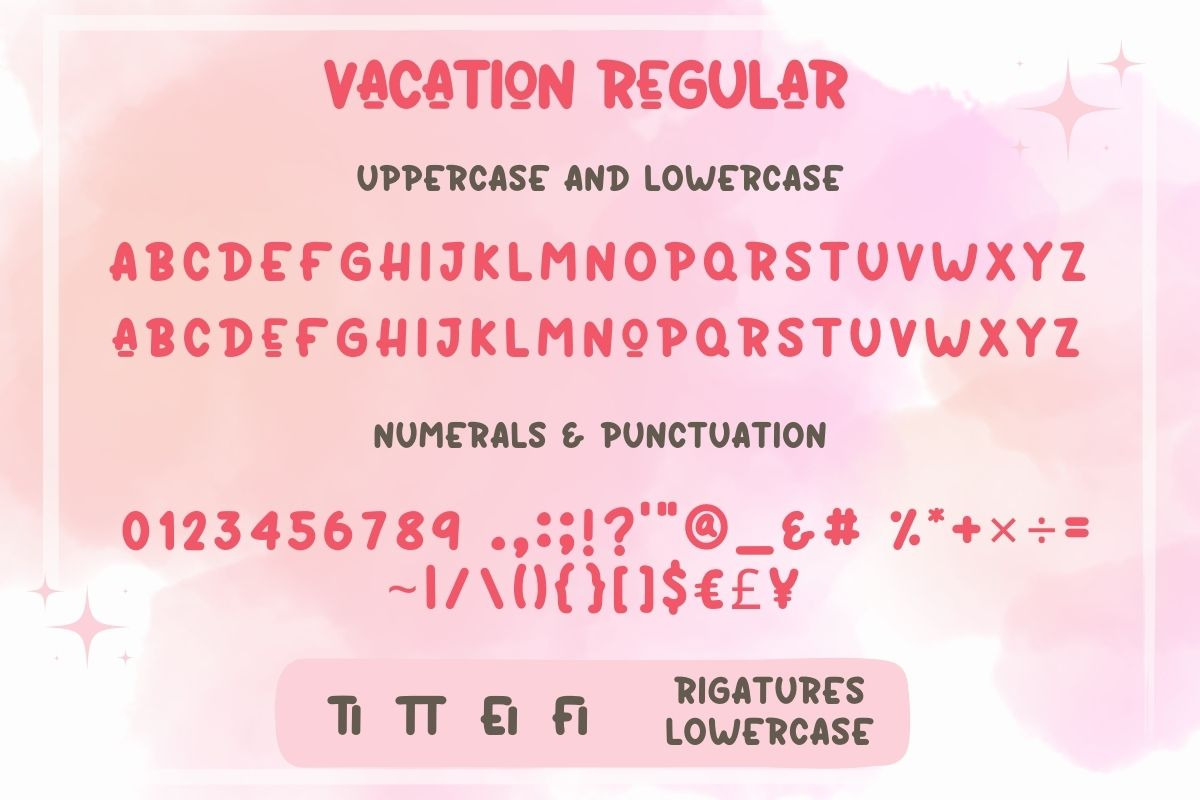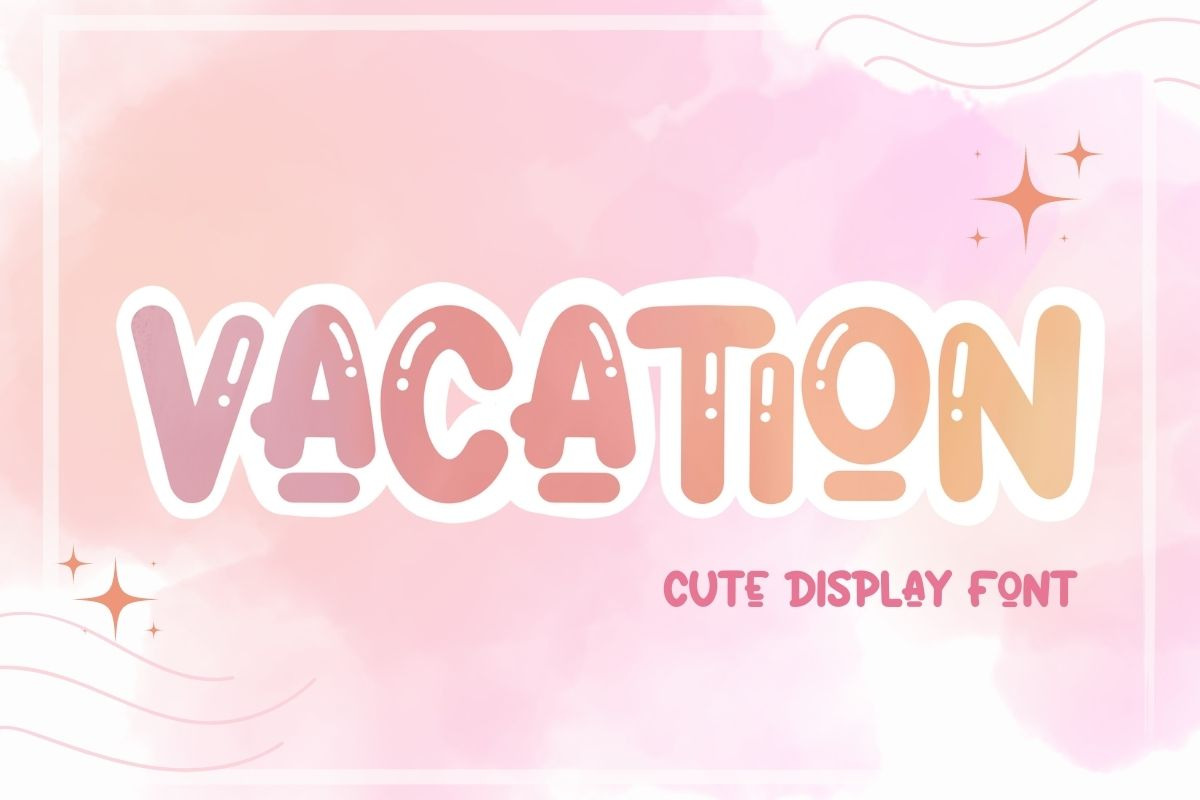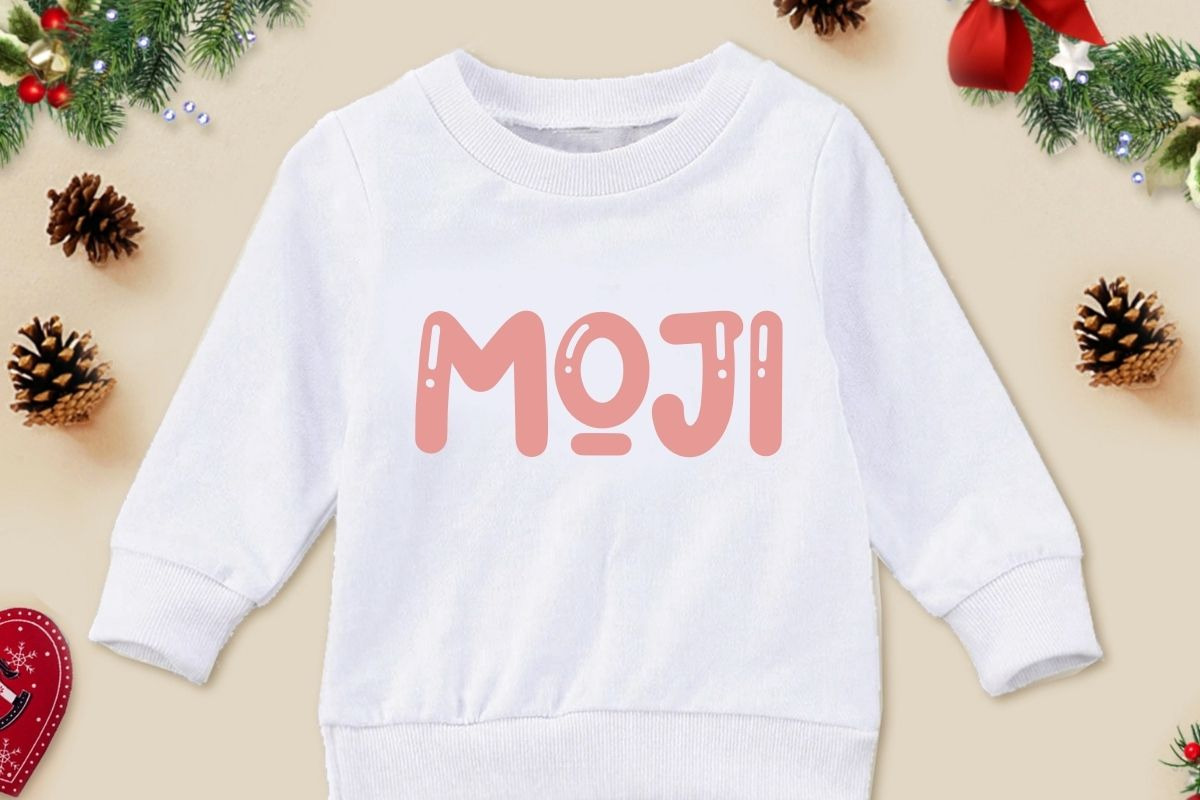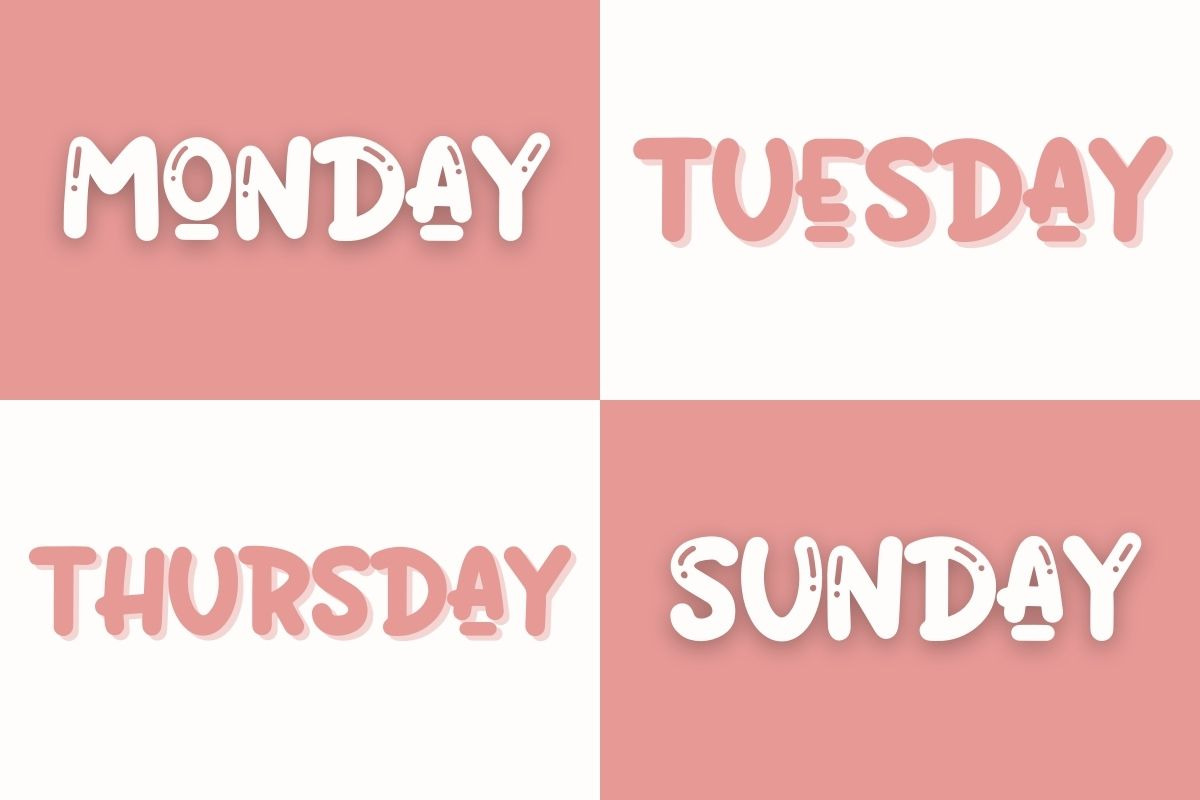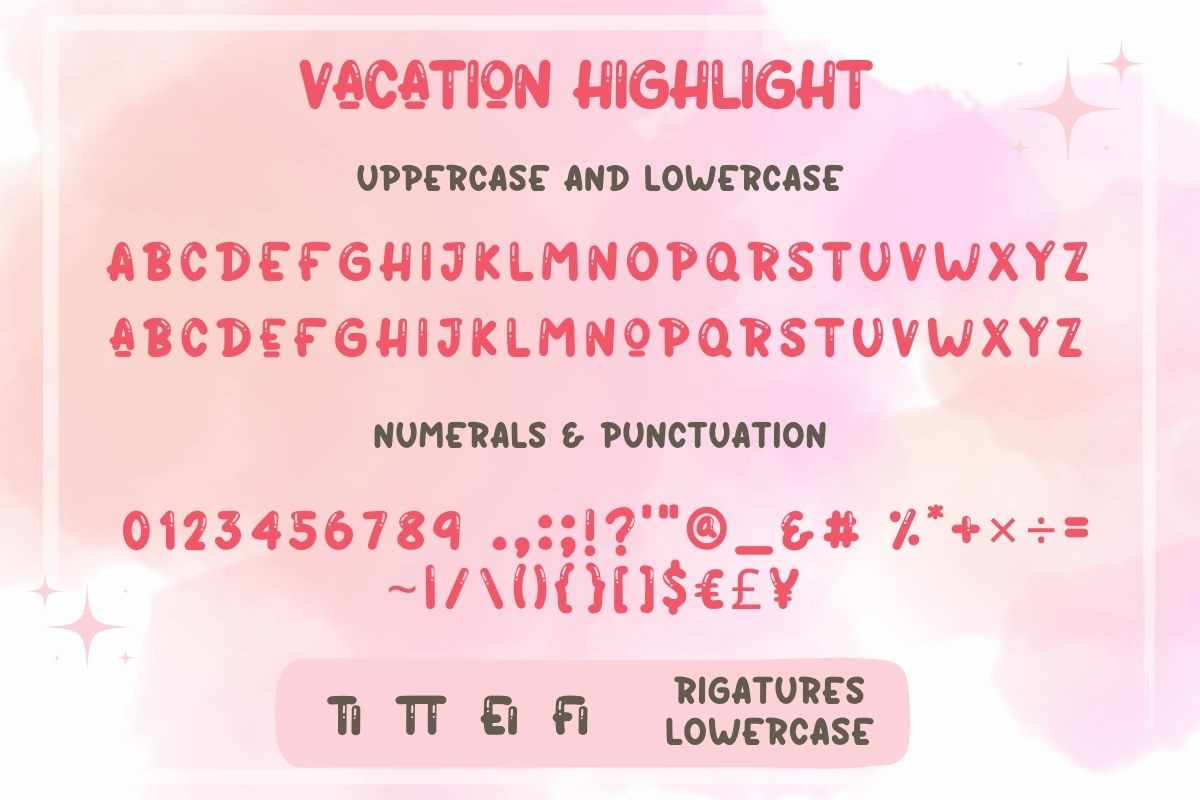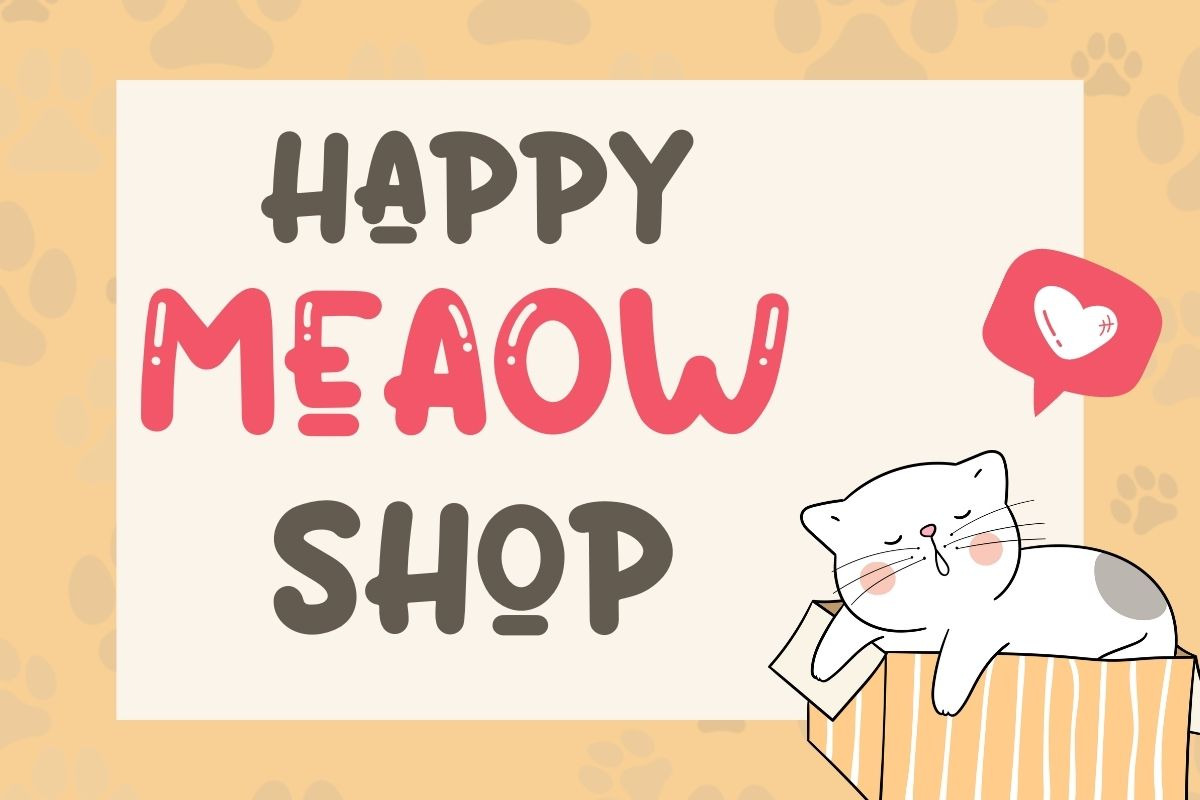
Vacation Font | Display Font
Vacation is lovely handwriting font that will help you enjoy and have fun ligatures.
There is ligature for the following letters: ti, tt, ei, fi
Available in two variants - Regular and Highlight - You can choose to use it to suit your design or combine it to make your design look unique.
This font Perfect for creating a wide variety of new designs to match products such as banners, content, mugs, cards, shirts, stationery, social media posts, and more!